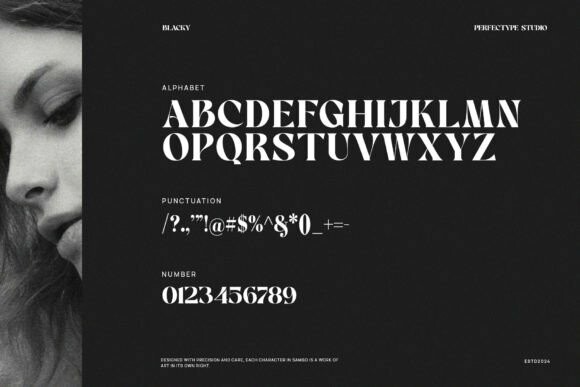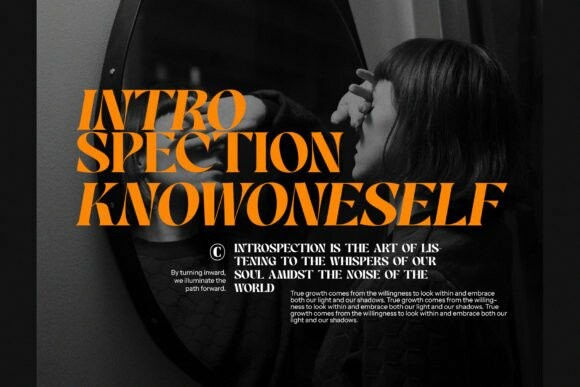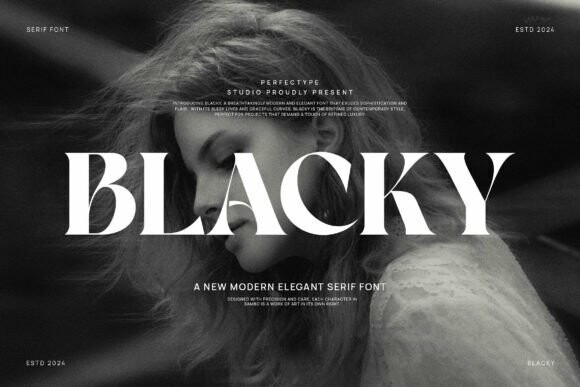
Blacky Serif Font
Designer: Perfectype
Blacky Serif Font, This type of serif font is made with elegance and luxury so it is very suitable for all your design uses. This type of font is very suitable for your various needs such as branding projects, logos, social media posts, advertisements, labels, product packaging, photography, wedding designs, watermarks, invitation product designs, stationery, and any project, created at a high level legibility.